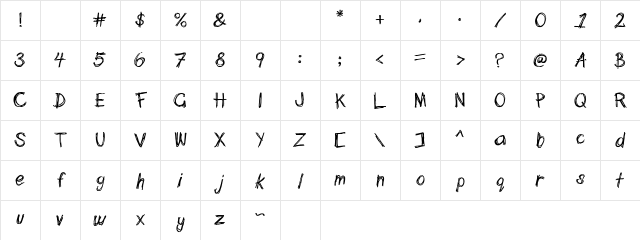
scribblett Regular
Foundry: Amy Cassim
Designer: Amy Cassim
Design Context for scribblett
scribblett is a composed and adaptable typeface that performs quietly and consistently across a wide range of design contexts.